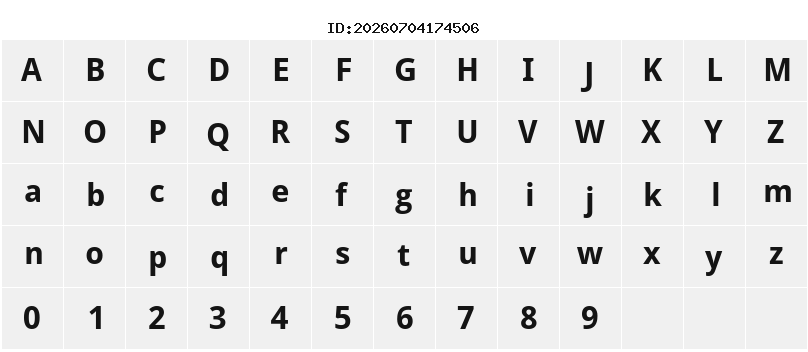
Droid Sans Preview
• Font Name: Droid Sans
• Full Font Name: Droid Sans Bold
• Manufacturer: Ascender Corporation
• Description: Droid Sans is a humanist sans serif typeface designed for user interfaces and electronic communication.
About Droid Sans.ttf
Droid Sans.ttf is a modern, elegant sans-serif font designed for ultimate readability and visual harmony. Perfect for branding, headlines, web design, and print materials.